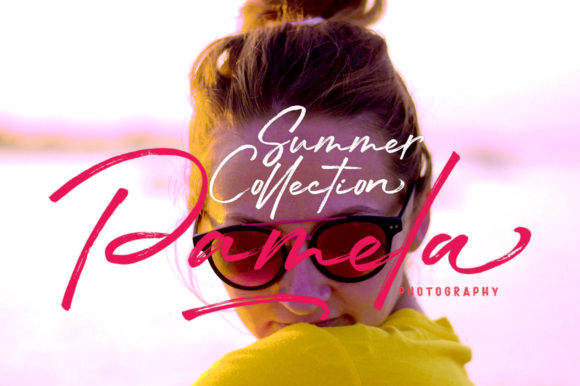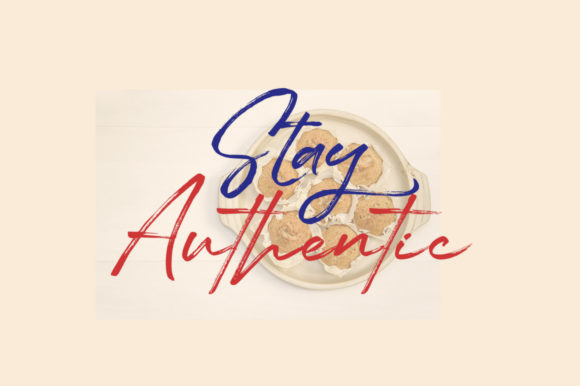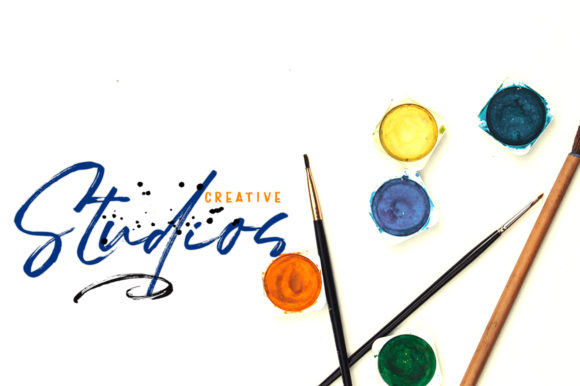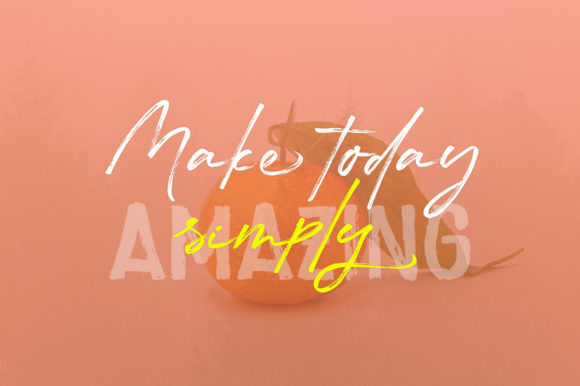
The Perfect Handwritten Touch: Handstand Font
Have you ever been brainstorming a new project and suddenly, a spark of creativity hits you? Maybe it’s a late-night coffee-fueled idea or a moment of inspiration during a morning walk. Whatever it is, that rush of creativity can lead to some amazing things. For me, it was the moment I stumbled upon Handstand Font – a playful, handwritten font that instantly added a personal touch to all my designs.
Handstand Font is a casual, fun handwritten font created using a brush pen. It’s perfect for adding a quirky, human element to your logos, branding, social media, and crafty DIY projects. What makes it truly valuable for designers is its ability to evoke emotions and create a connection with your audience. With Handstand Font, you can add a unique touch to your work that sets you apart from the rest.
Handstand Font Key Features
- Size: The font family includes 6 different font weights, ranging from Thin (100) to Black (900), providing flexibility for various design applications.
- Unique Characteristics: Handstand Font features a distinctive, hand-drawn aesthetic with subtle imperfections, giving it a personal and artistic feel.
- Language Support: Handstand Font includes support for multiple languages, including Latin, Cyrillic, and Greek scripts, making it suitable for international designs.
Handstand Font Review
When I first saw Handstand Font, I was excited to dive in and explore its features. ✨ One thing that works well is the unique, handwritten feel it offers. The font is perfect for creating a personal touch in your designs, making it ideal for logos, branding, and even digital invitations.
Another aspect I appreciate is the wide range of weights and styles available. This allows for flexibility and adaptability in your designs, making it suitable for various projects. The font also supports multiple languages, making it a great option for global audiences.
- ⚠️ The font might be too cursive for some projects, such as body text or headlines where a more straightforward font is needed.
- ⚠️ Some users might find the font’s irregularities and imperfections too distracting or unprofessional.
In general, I think Handstand Font is a solid addition to any designer’s toolkit. While it may not be perfect for every project, it’s a great option for those looking for a unique, handwritten feel. With some careful consideration of its limitations, I believe Handstand Font can elevate your designs and leave a lasting impression.
Handstand Font is ideal for creative and whimsical designs, such as children’s books, party invitations, and social media graphics. To get the most out of it, use it in bold and playful combinations with other fonts and colors.